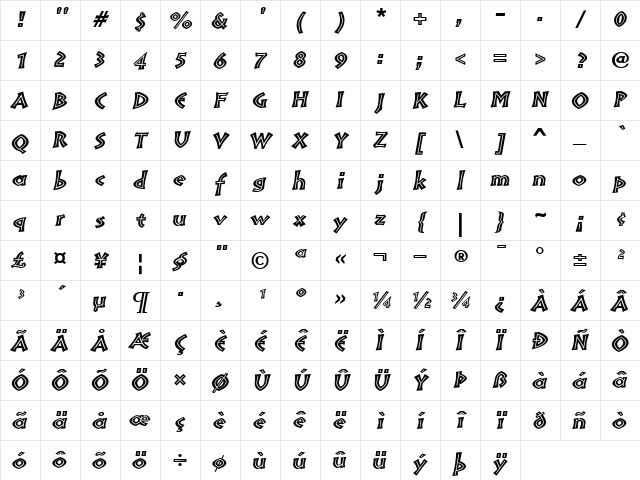
PompeiaInline RomanItalic
Design Context for PompeiaInline
PompeiaInline is built around its visual character rather than neutral utility - its distinctive forms are designed to make an impression at display sizes. The slanted form adds forward momentum and visual energy.
Font Pairing: Pair with a clean neutral sans-serif for body copy to let PompeiaInline's character lead without overwhelming the composition.
Pro Tip: Use PompeiaInline exclusively at display sizes - it was designed to be seen, not read at length. Let a neutral companion handle body copy.